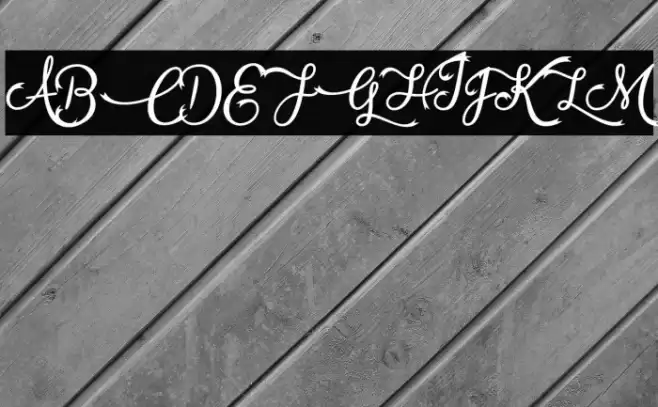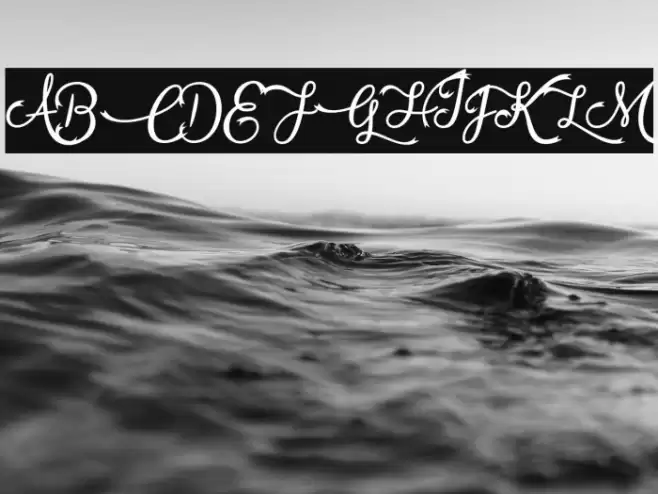
VampireCalligraphy Font
VampireCalligraphy Description
This font features an elegant and flowing script style, reminiscent of classic calligraphy with a modern twist. The uppercase letters are adorned with intricate swirls and loops, giving them a decorative and sophisticated appearance. The lowercase letters maintain a smooth and connected cursive form, enhancing readability while retaining an artistic flair. Numbers and special characters are designed with the same attention to detail, ensuring a cohesive look across all glyphs. The font's overall aesthetic is both graceful and bold, making it suitable for projects that require a touch of elegance and creativity.
An elegant script font with decorative swirls and a modern calligraphic style from Uncategorized fonts.